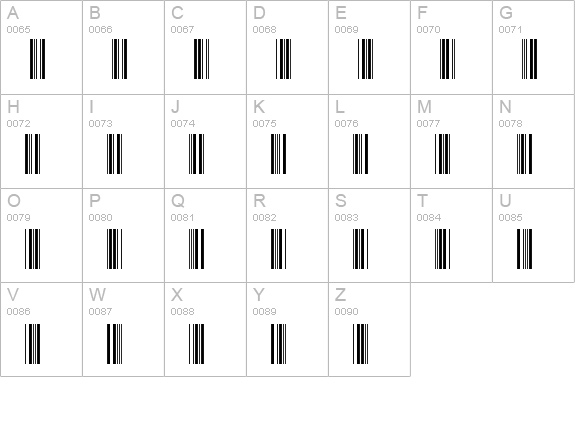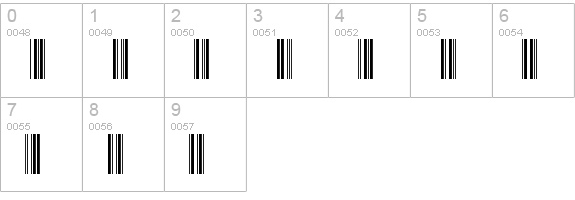
SKANDEMO Bar Code C39 Font Details
SKANDEMO Bar Code C39 font is a versatile and highly functional barcode font that is designed to meet all your barcode generating needs. This font is specifically created in the Code 39 format, which is widely used in various industries including retail, logistics, and healthcare. What sets SKANDEMO Bar Code C39 font apart is its seamless integration with any design or text application. It is compatible with both Windows and Mac operating systems, making it accessible to a wide range of users. Whether you are designing product labels, packaging, or inventory management systems, this font provides the perfect solution for generating accurate and scannable barcodes. One of the key advantages of SKANDEMO Bar Code C39 font is that it is freely available to download at FontsMarket.com. This means that you can easily access and utilize this font without any additional cost. This is particularly beneficial for small businesses and startups who are looking for cost-effective solutions to enhance their operations. With SKANDEMO Bar Code C39 font, you can create high-quality barcodes that are compatible with any barcode scanner or reader. This font supports both alphanumeric and special characters, giving you the flexibility to generate barcodes for a wide range of products and items. Whether you are a professional designer or a business owner, SKANDEMO Bar Code C39 font is an essential tool that will streamline your barcode generation process. Its user-friendly interface and compatibility with various applications make it easy to integrate into your existing workflow. In conclusion, SKANDEMO Bar Code C39 font is a reliable and efficient barcode font that offers unmatched flexibility and ease of use. Its availability as a free download at FontsMarket.com makes it an invaluable resource for businesses of all sizes. Start using SKANDEMO Bar Code C39 font today and experience the convenience and efficiency it brings to your barcode generation process.